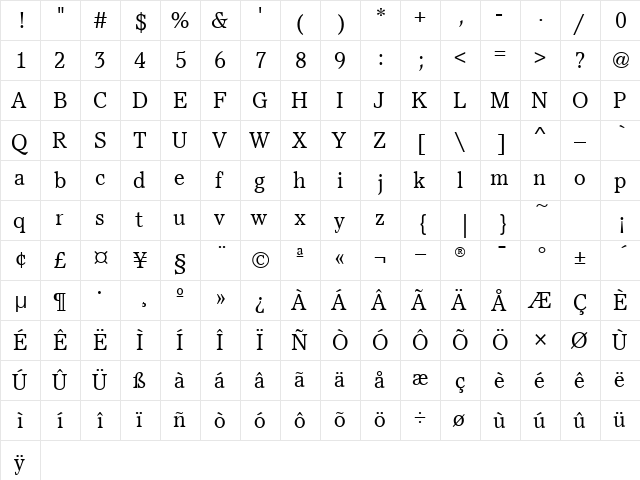
PacellaITCTT Book
| Foundry | International Typeface Corporation |
| Designer | Vincent Pacella |
Design Context for PacellaITCTT Typeface
PacellaITCTT offers clean, dependable letterforms without strong stylistic allegiance, making it a practical choice for designers who need flexibility.